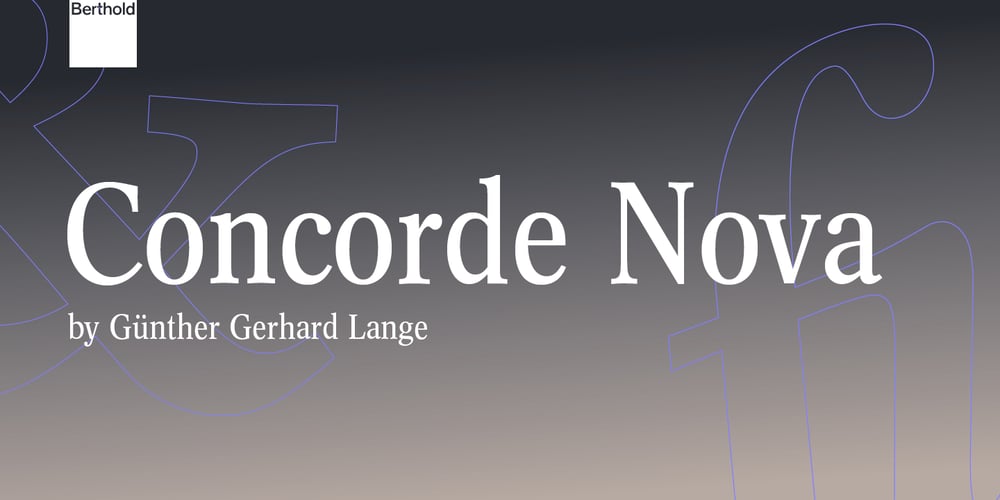
Concorde Nova Font Family was designed by Günter Gerhard Lange and published by Berthold. Concorde Nova contains 3 styles and family package options. With condensed type gaining popularity in the 1970s, Berthold released Günter Gerhard Lange’s original design, Concorde Nova, in 1975. Though a condensed typeface, it has great legibility and is clear and appealing. Concorde Nova is especially suited for spread sheets, financial statements and cramped spaces with numbers. It is a good alternative to Univers 57 and Frutiger Condensed when a condensed serif type is preferred.